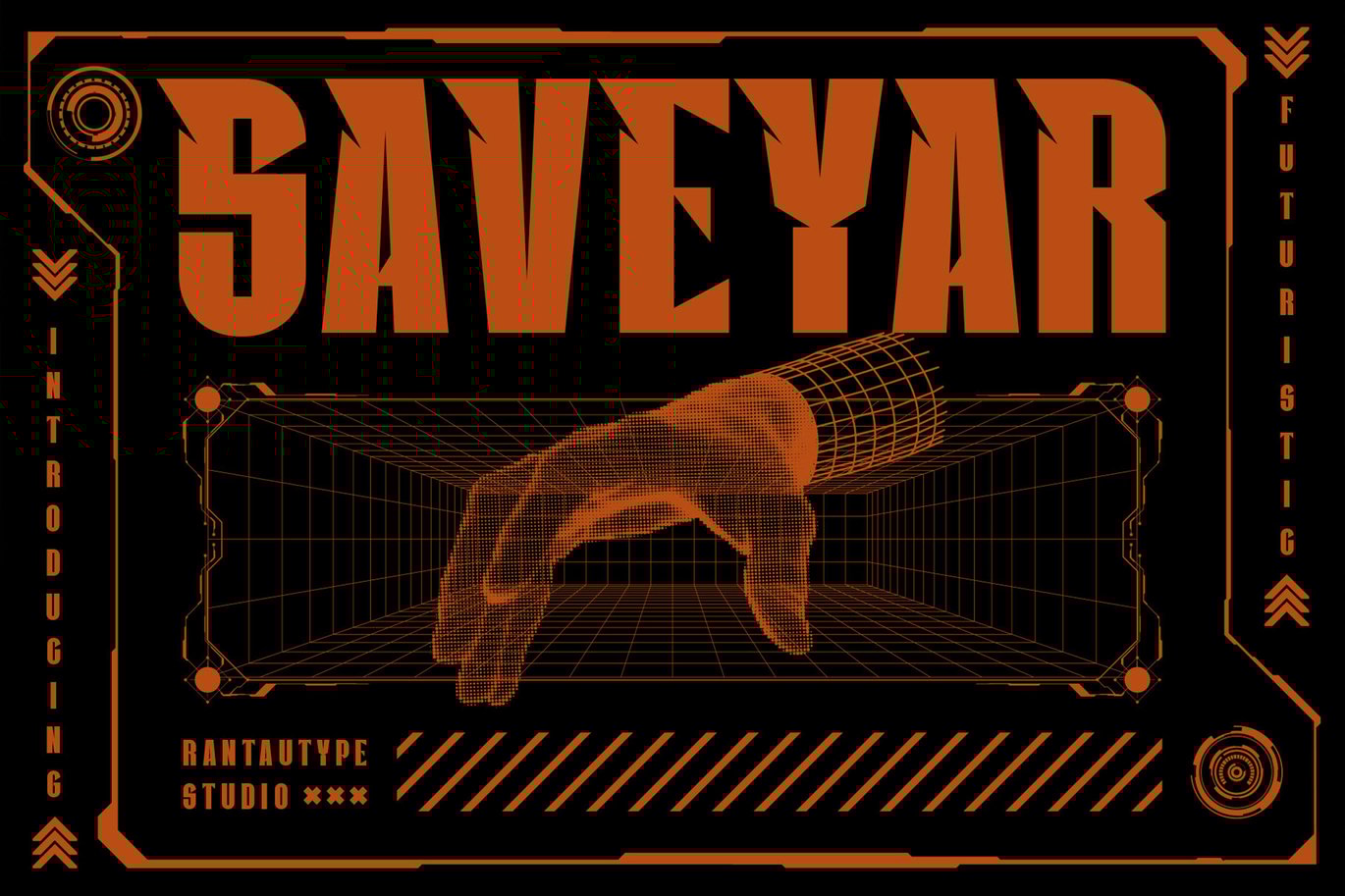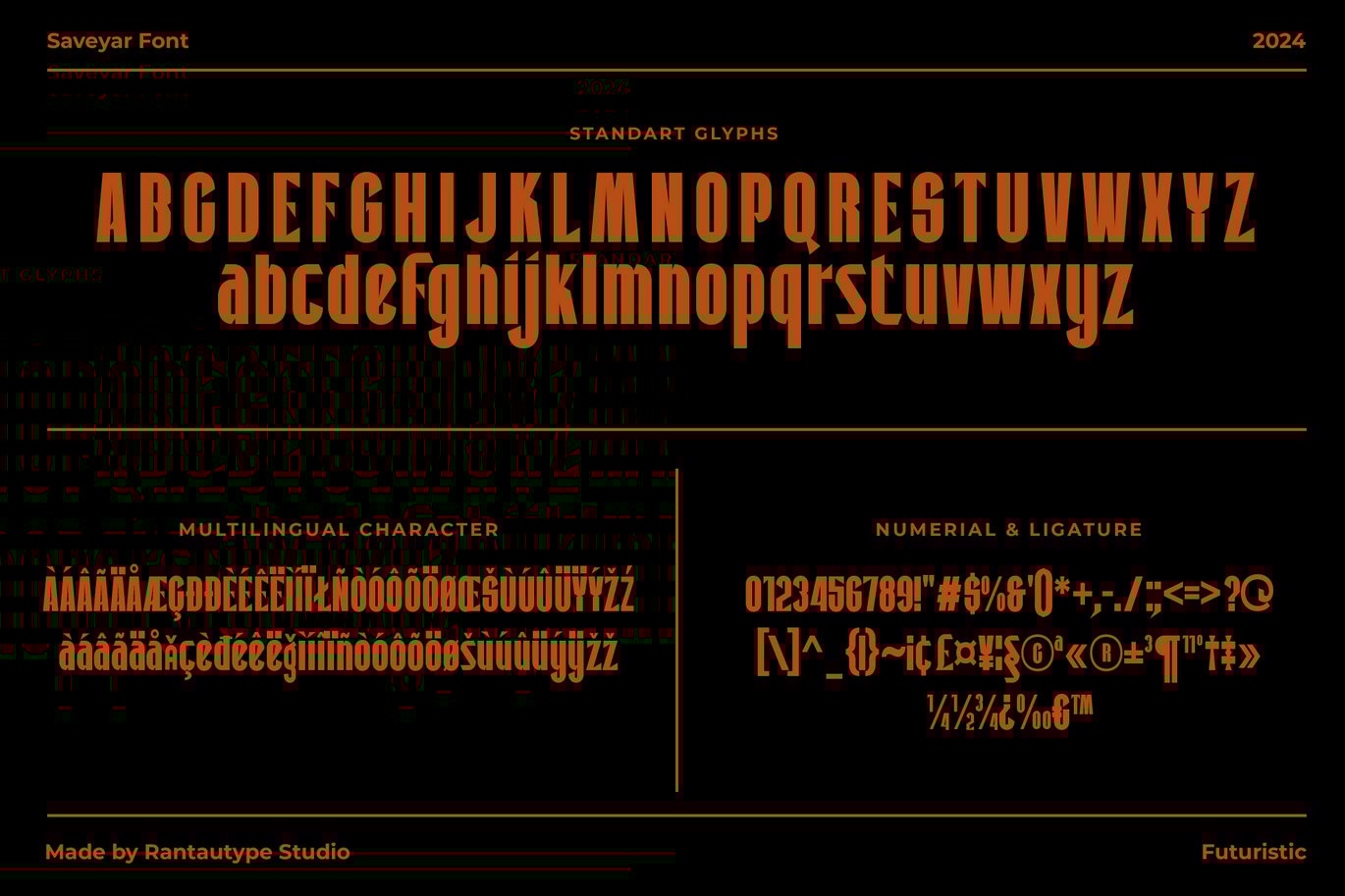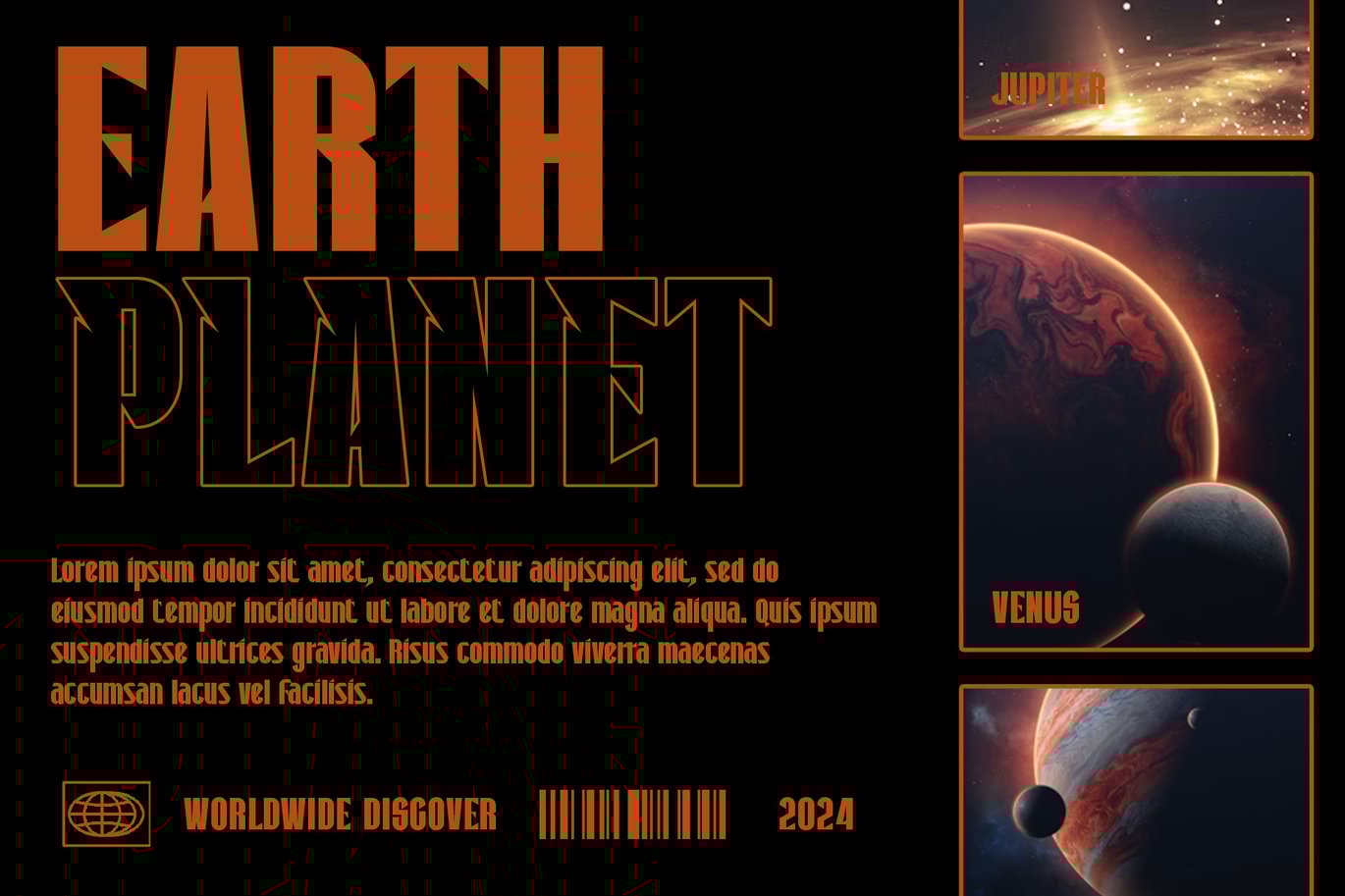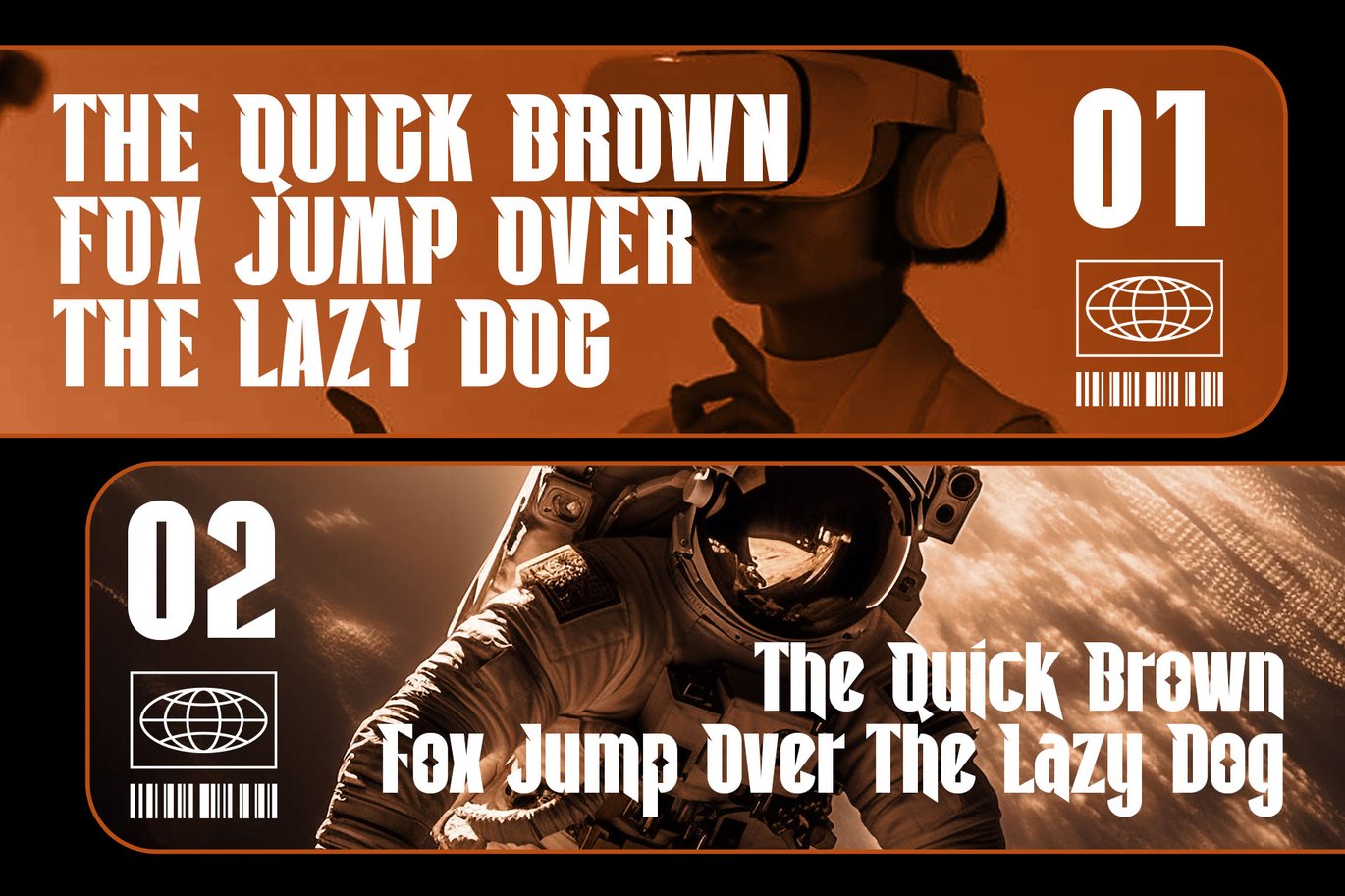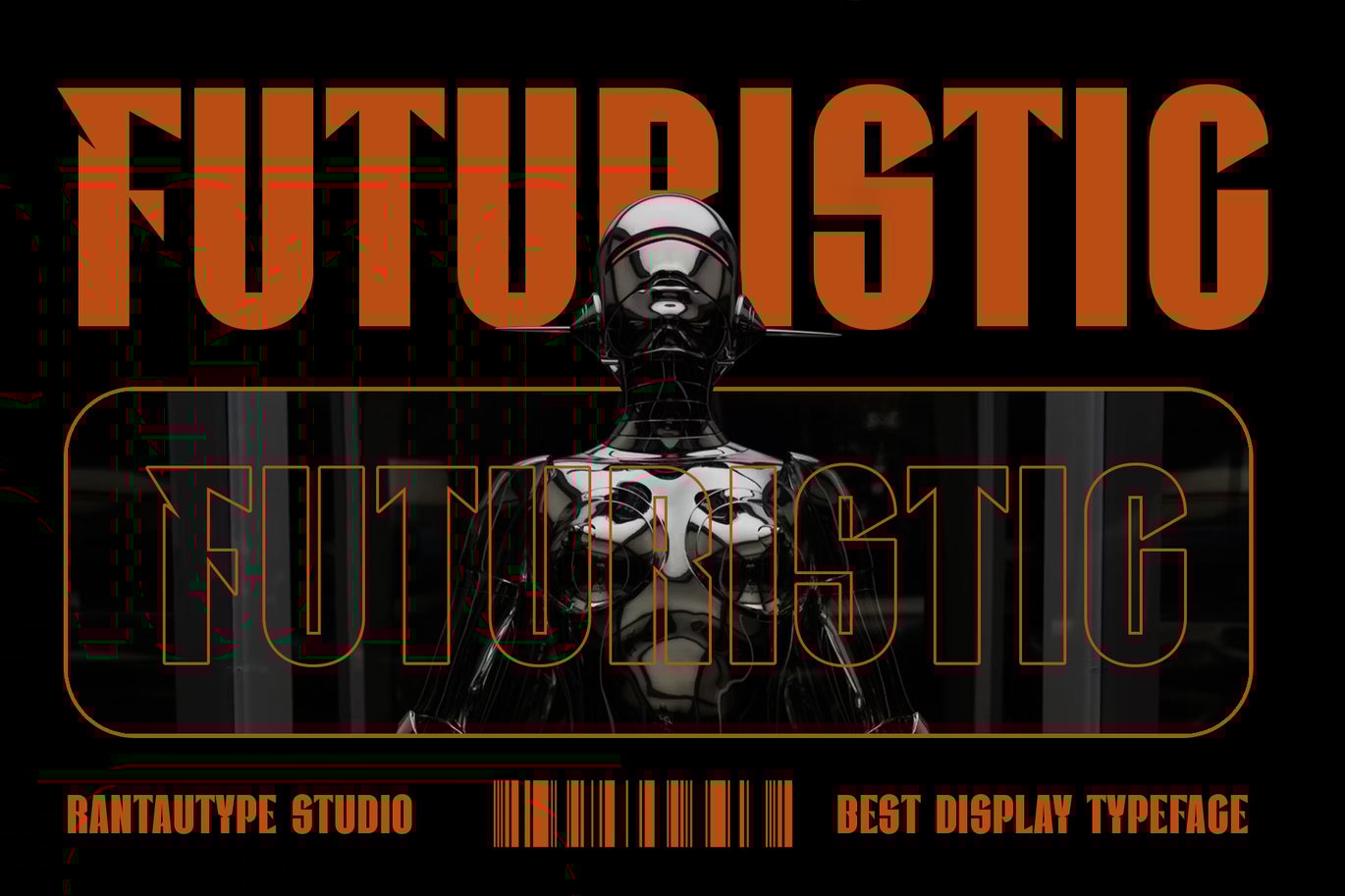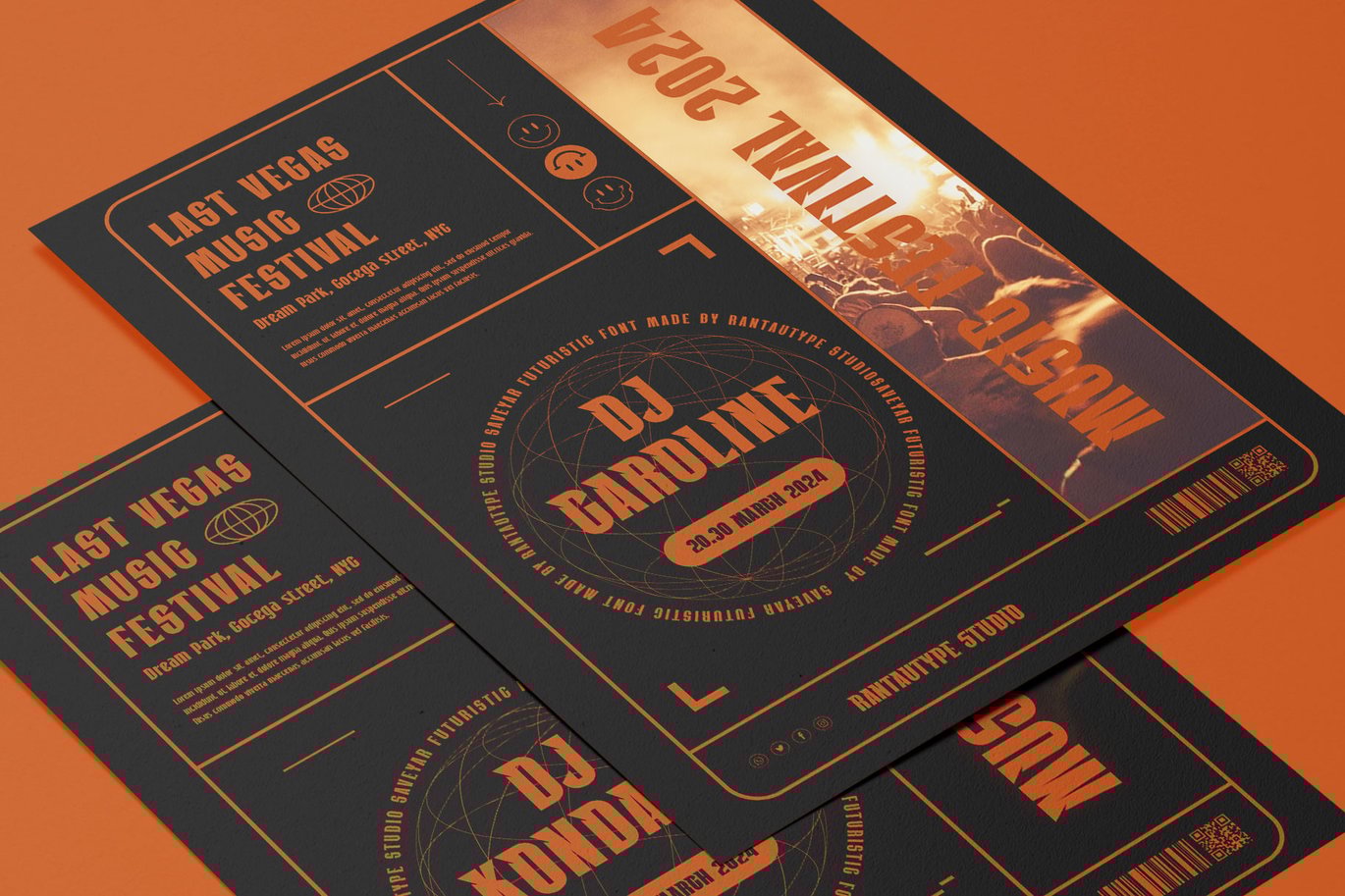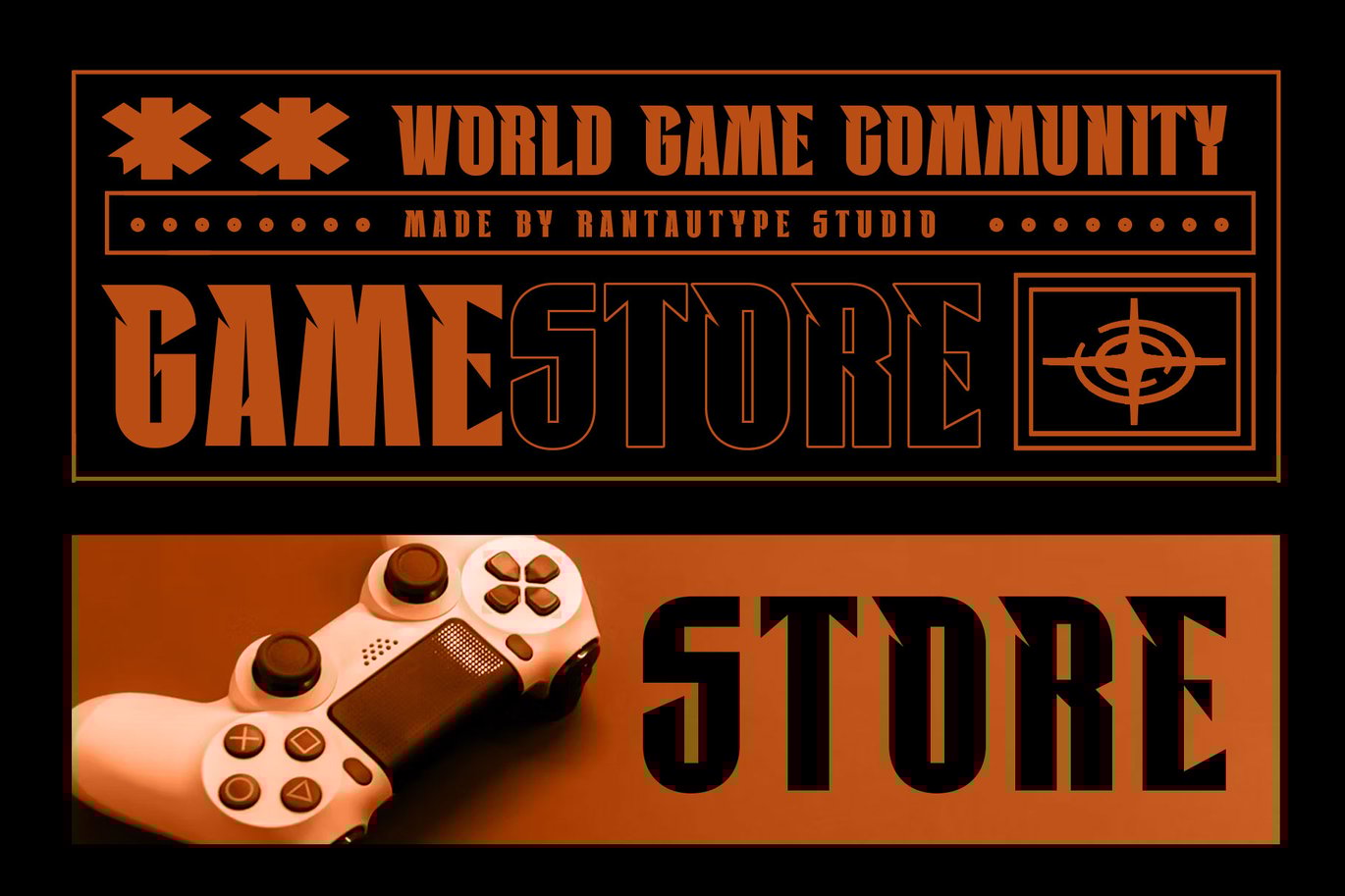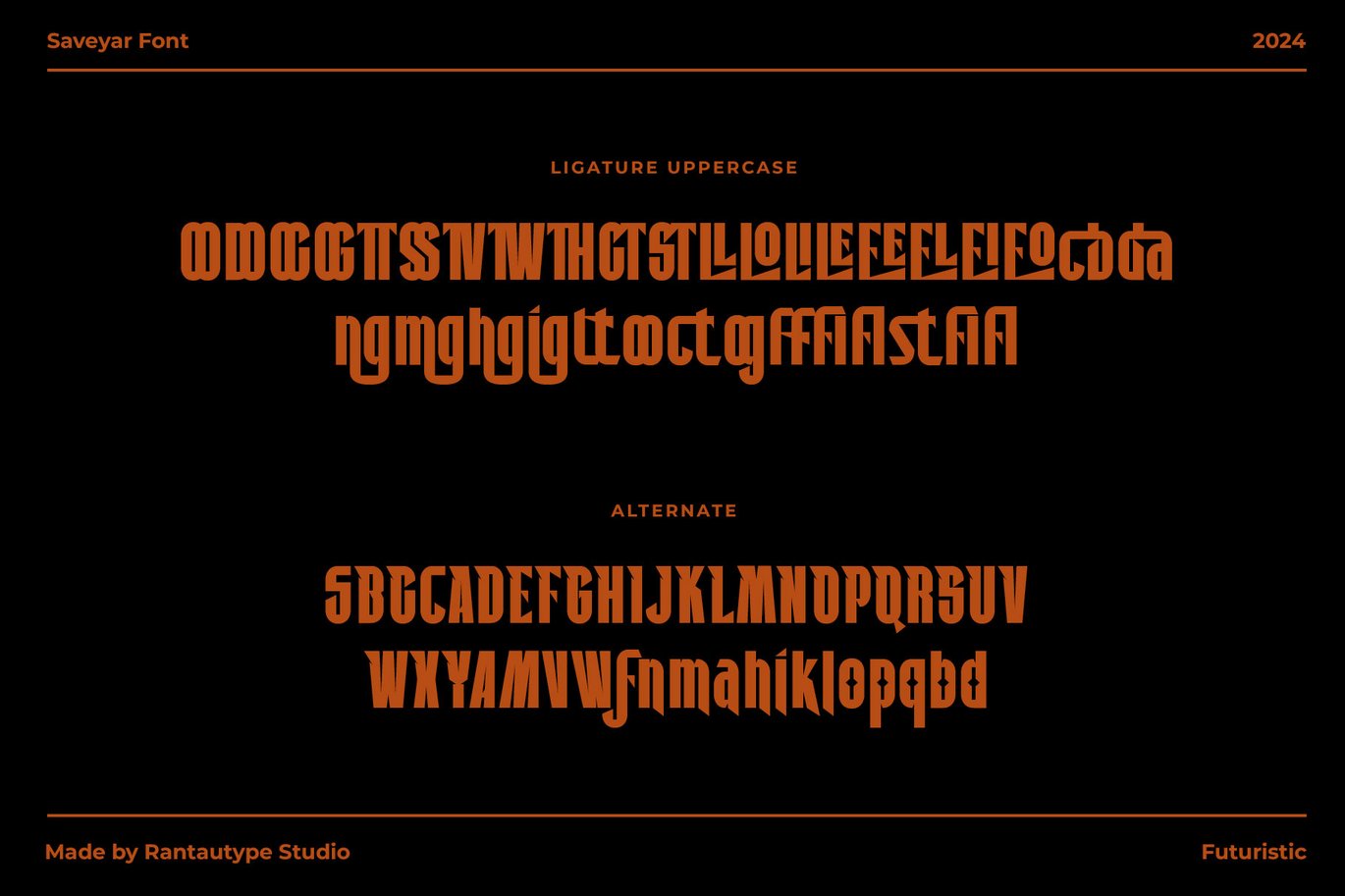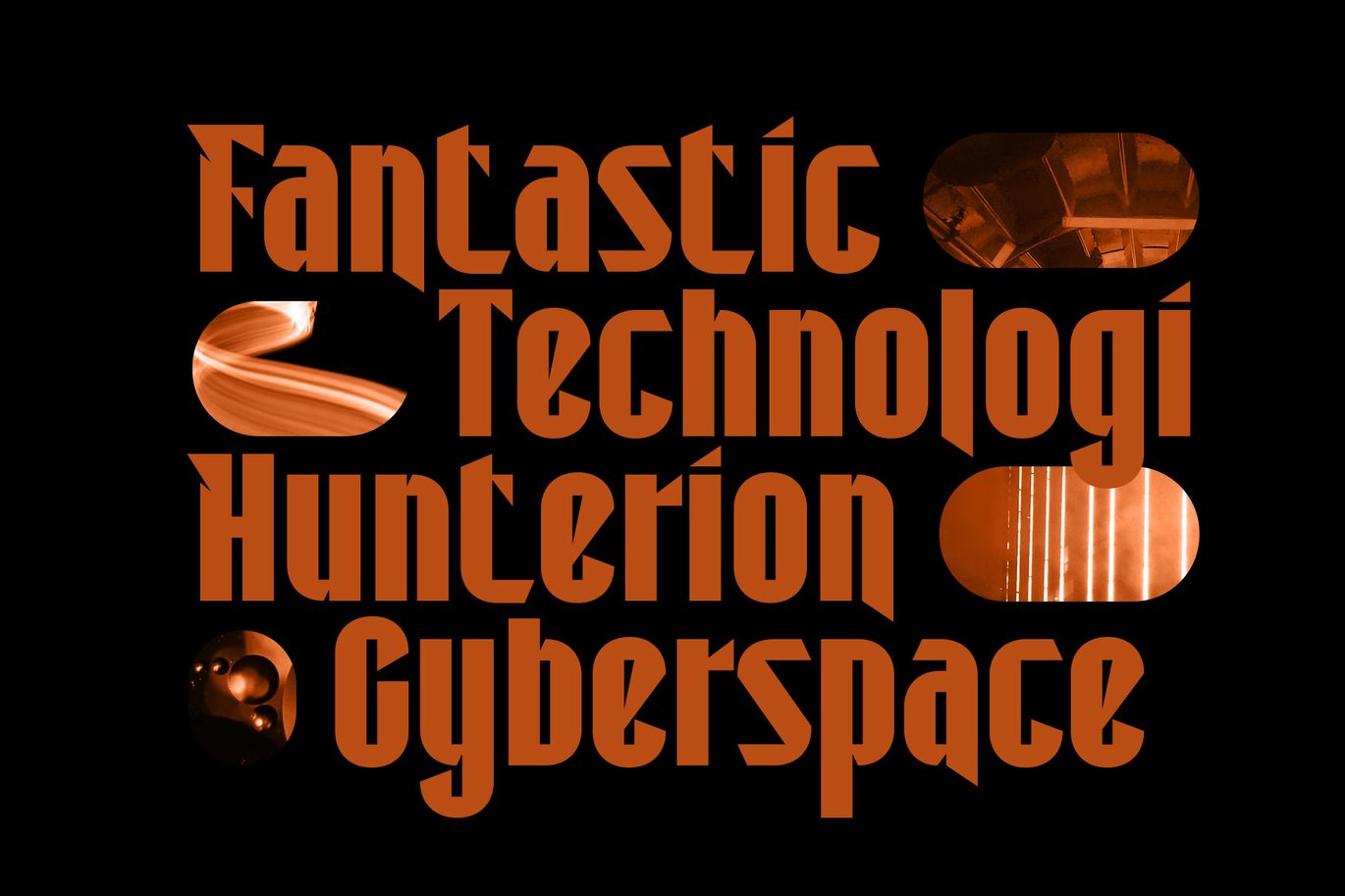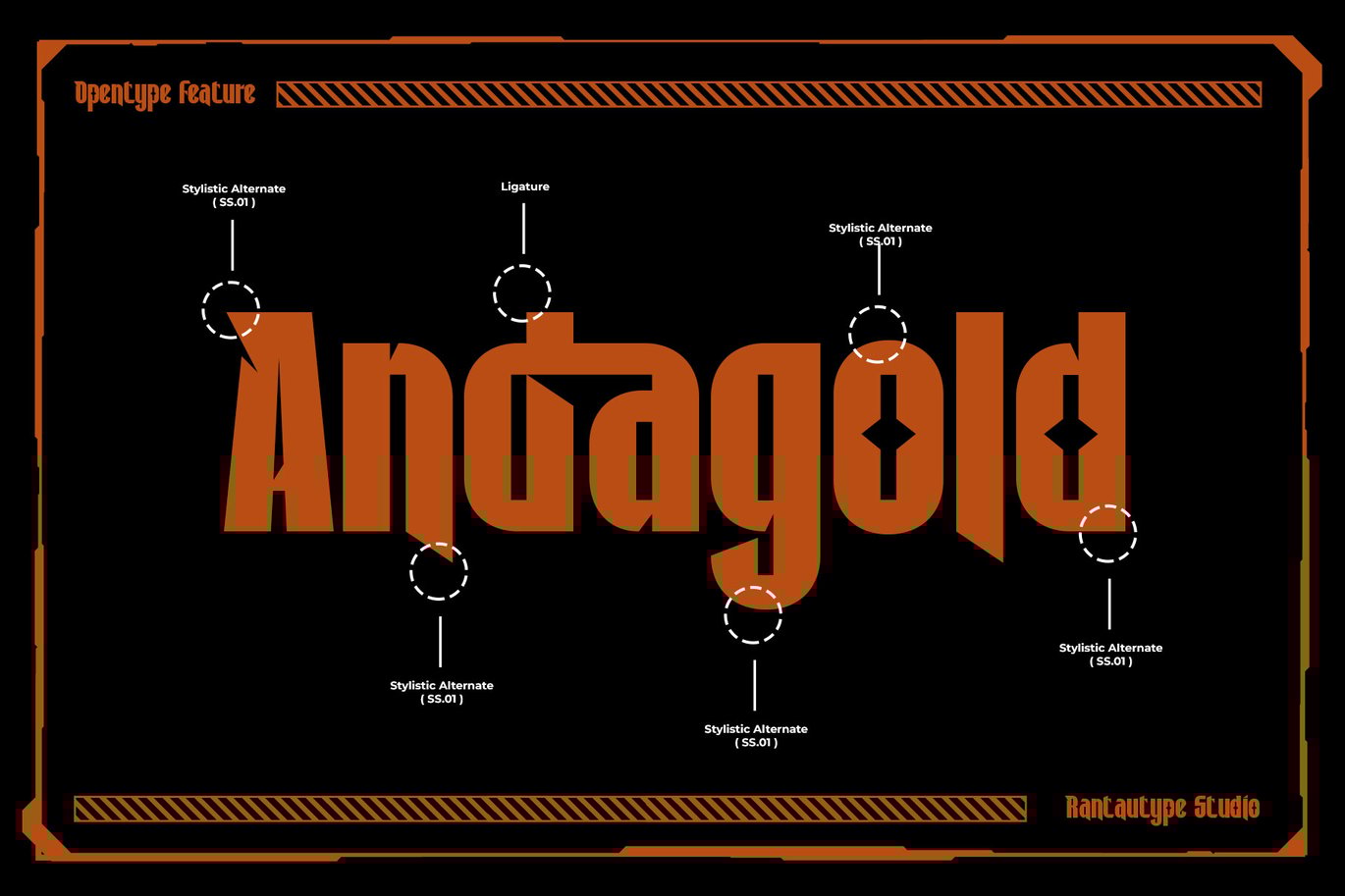
Saveyar A Futuristic Font
Saveyar is futuristic display font inspire by robotic, artificial intelligence and science fiction visual design. Strong and unique is suitable for this futuristic font, the shape can bring another world of technology potential design project more attractive and stand out!